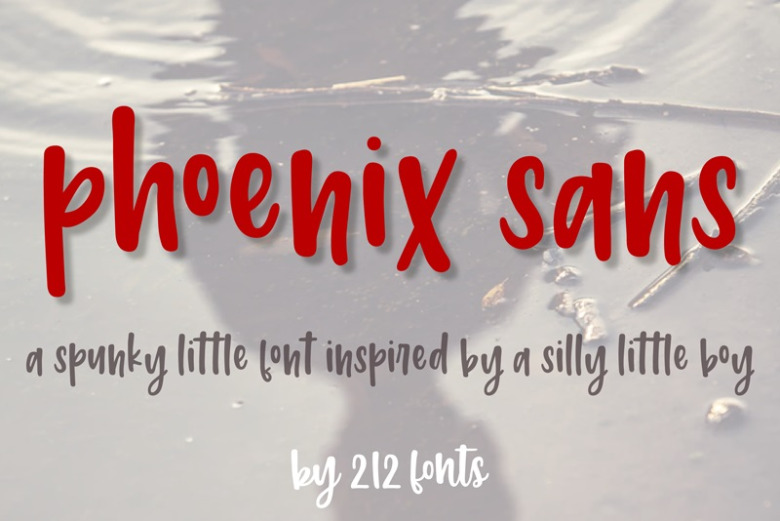
212 Phoenix Sans Font
212 Phoenix Sans is a high quality Handwritten font that is designed by 212 fonts and is available for free download and personal use. The free version provides all uppercase and lowercase letters and a few special characters too.